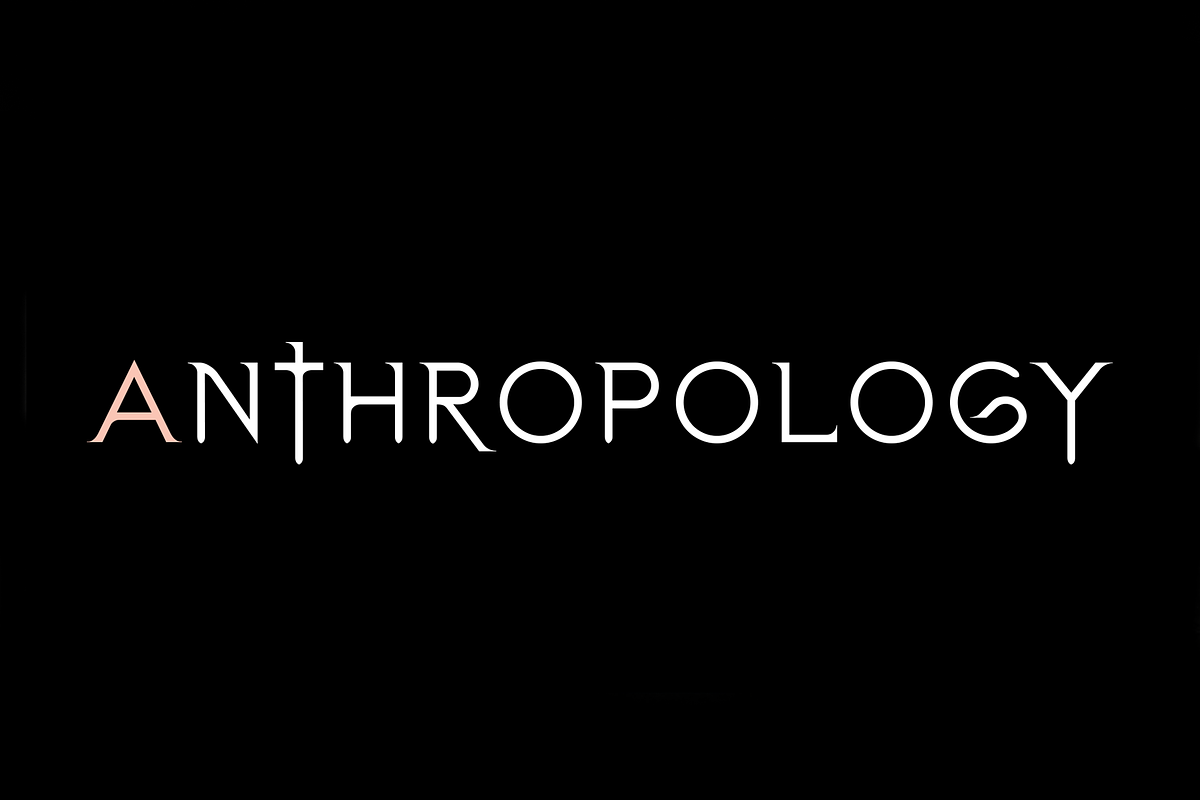
Anthropology. Modern serif font Free Download
Anthropology – Modern Serif Font Free Download is a refined and stylish typeface that blends timeless serif tradition with a sleek, contemporary twist. Featuring high contrast strokes, elegant curves, and minimalist details, this font is perfect for editorial layouts, branding, websites, packaging, and modern luxury design.
Anthropology – Modern Serif Font Free Download exudes confidence and professionalism, making it a great choice for creatives who want clean, sophisticated typography with personality. Whether you're crafting a chic logo, a classy magazine spread, or fashion-forward content, this font elevates your message with grace.